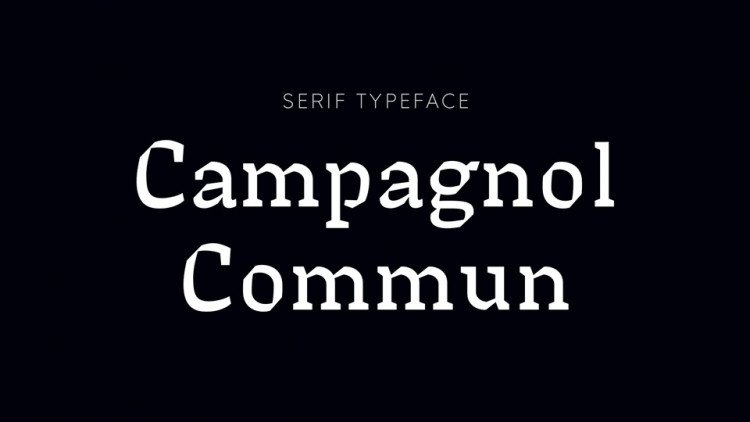
Campagnol Commun Typeface
Campagnol Commun Typeface is a sharp serif font. It contains a full set of upper and lowercase letters, numbers, punctuation, accents.
Campagnol Commun is suitable for text, titles, short messages, posters and other artworks.